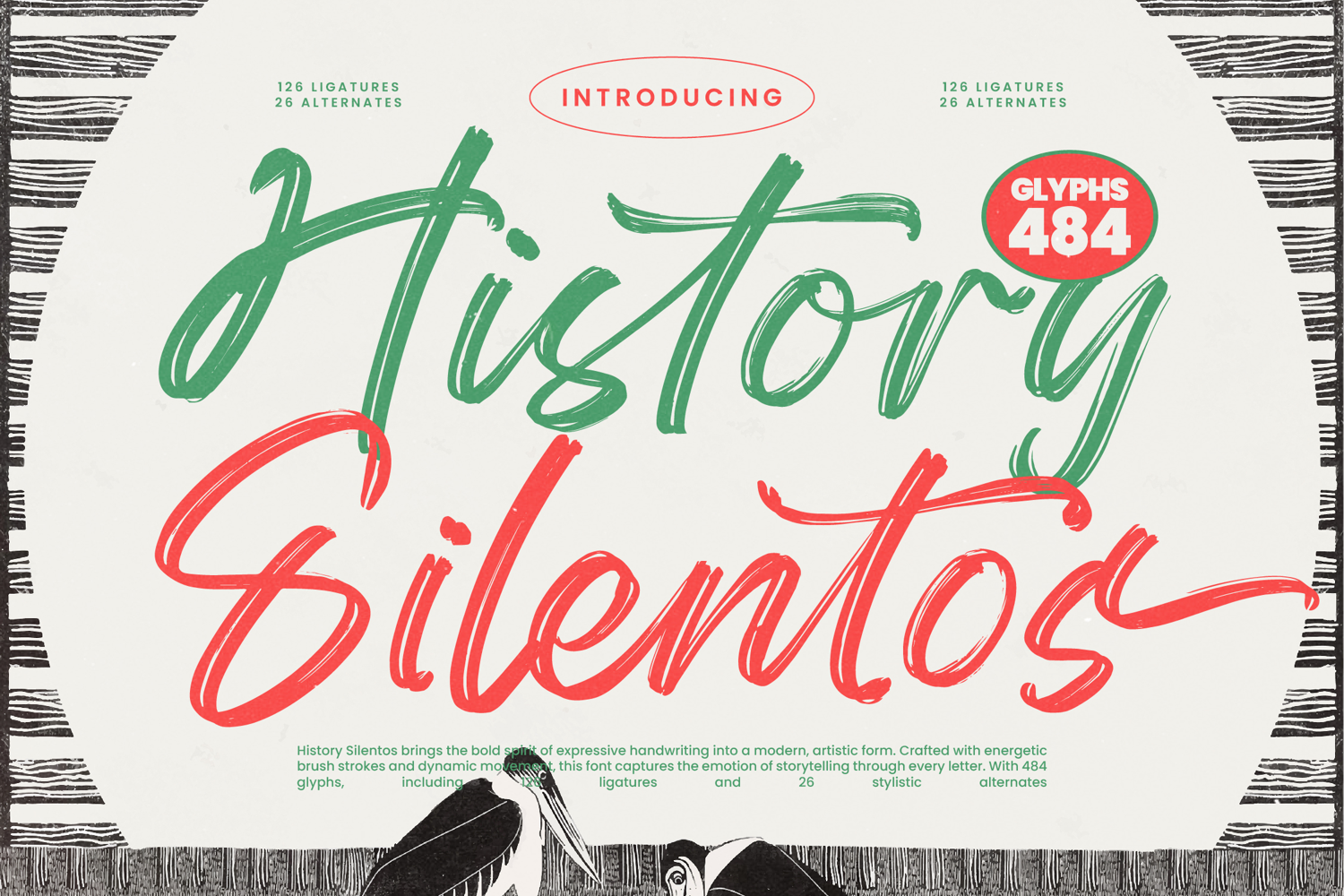
History Silentos - Brush Script Font
Unleash a wave of raw creative energy with History Silentos, a dynamic brush script that pulses with life. Every character is crafted with the spontaneous flow of authentic brush strokes, capturing an untamed spirit that refuses to be ignored. Its bold letterforms and slightly textured edges deliver a powerful and expressive visual statement, infusing your designs with a vibrant personality that feels both modern and genuinely handcrafted.